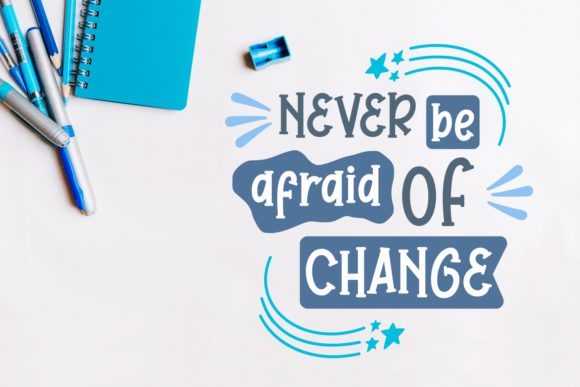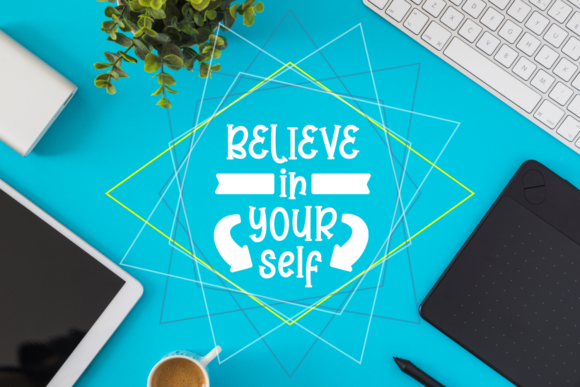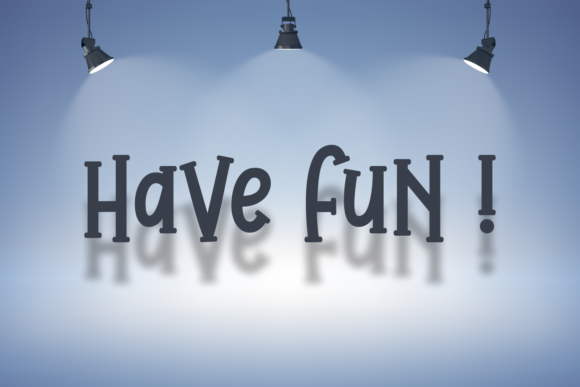
Hello Friends Font: A Fun and Beautiful Handwritten Font for Your Creative Projects
Hello Friends is a fun and beautiful handwritten font with an incredible feel. Get inspired by its bold and friendly charm! This lovely font is perfect for designers and crafters looking to add a personal touch to their projects. In this article, we’ll dive into the world of Hello Friends Font, exploring its features, uses, and benefits.
What is Hello Friends Font?
Hello Friends Font is a handwritten font designed to bring a sense of warmth and friendliness to your designs. Its bold and playful strokes make it perfect for a variety of creative projects, from greeting cards and invitations to posters and social media graphics. The font’s unique charm is sure to capture the attention of your audience and leave a lasting impression.
Features of Hello Friends Font
- Handwritten style: Hello Friends Font boasts a beautiful, handwritten style that’s perfect for adding a personal touch to your designs.
- Bold and friendly charm: The font’s bold strokes and friendly feel make it ideal for designs that require a playful and approachable tone.
- High-quality design: The font is carefully crafted to ensure high-quality design, making it perfect for both digital and print projects.
- Easy to read: Despite its bold style, Hello Friends Font is easy to read, making it perfect for designs that require a clear and concise message.
Uses of Hello Friends Font
Hello Friends Font is a versatile font that can be used in a variety of creative projects, including:
- Greeting cards and invitations: Add a personal touch to your greeting cards and invitations with Hello Friends Font.
- Posters and flyers: Use the font to create eye-catching posters and flyers that grab attention.
- Social media graphics: Add a playful touch to your social media graphics with Hello Friends Font.
- Branding and packaging: Use the font to create unique and memorable branding and packaging designs.
Benefits of Using Hello Friends Font
Using Hello Friends Font in your designs offers several benefits, including:
- Unique and memorable designs: The font’s bold and friendly charm helps create unique and memorable designs that stand out from the crowd.
- Emotional connection: The font’s handwritten style and playful feel help create an emotional connection with your audience.
- Time-saving: Hello Friends Font is easy to use and saves time in the design process.
- Versatility: The font can be used in a variety of creative projects, making it a valuable addition to your design toolkit.
Tips for Using Hello Friends Font
Here are some tips for using Hello Friends Font in your designs:
- Pair with other fonts: Experiment with pairing Hello Friends Font with other fonts to create unique and interesting combinations.
- Use in large sizes: The font’s bold style makes it perfect for large sizes, such as headings and titles.
- Add texture and patterns: Add texture and patterns to your designs to give them a more organic and playful feel.
Hello Friends Font is a fun and beautiful handwritten font that’s perfect for designers and crafters looking to add a personal touch to their projects. Its bold and friendly charm makes it ideal for a variety of creative projects, from greeting cards and invitations to posters and social media graphics. With its high-quality design, ease of use, and versatility, Hello Friends Font is a valuable addition to any design toolkit.
Get inspired by the bold and friendly charm of Hello Friends Font and take your designs to the next level!